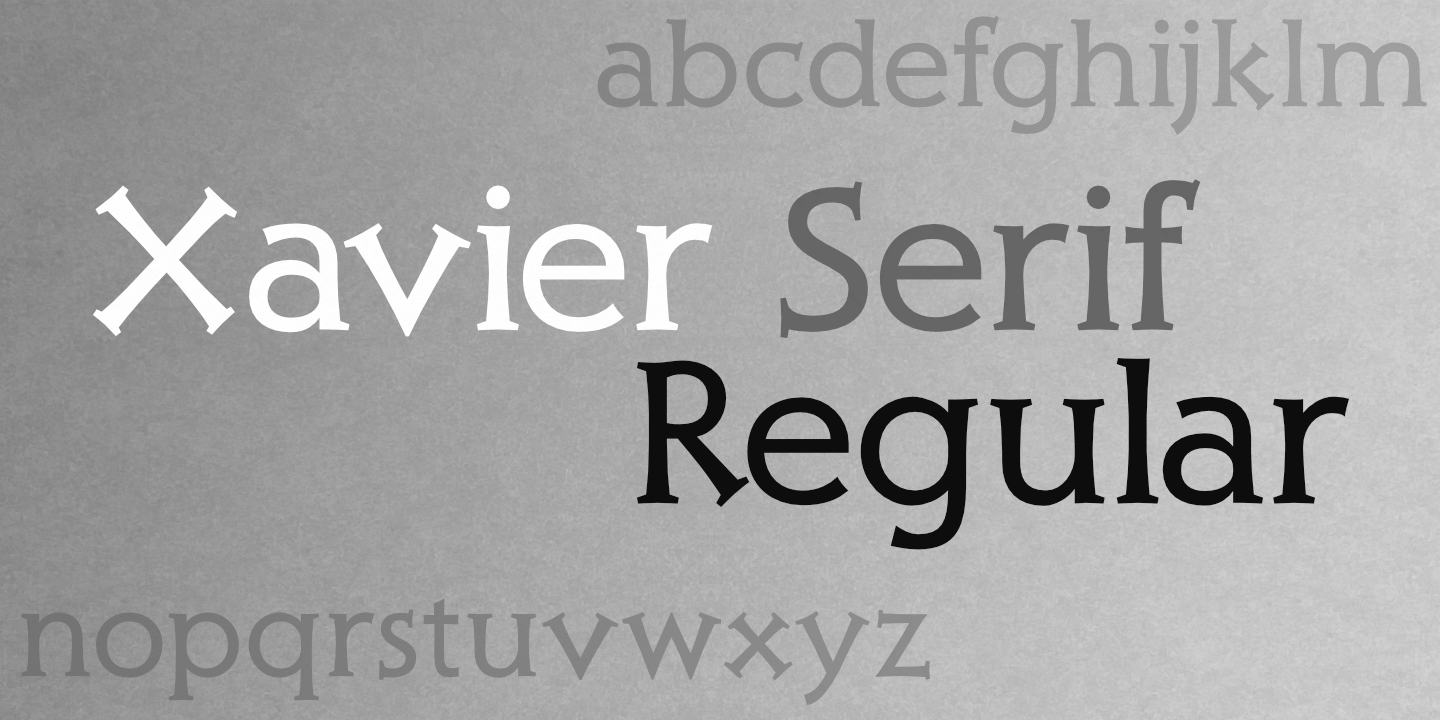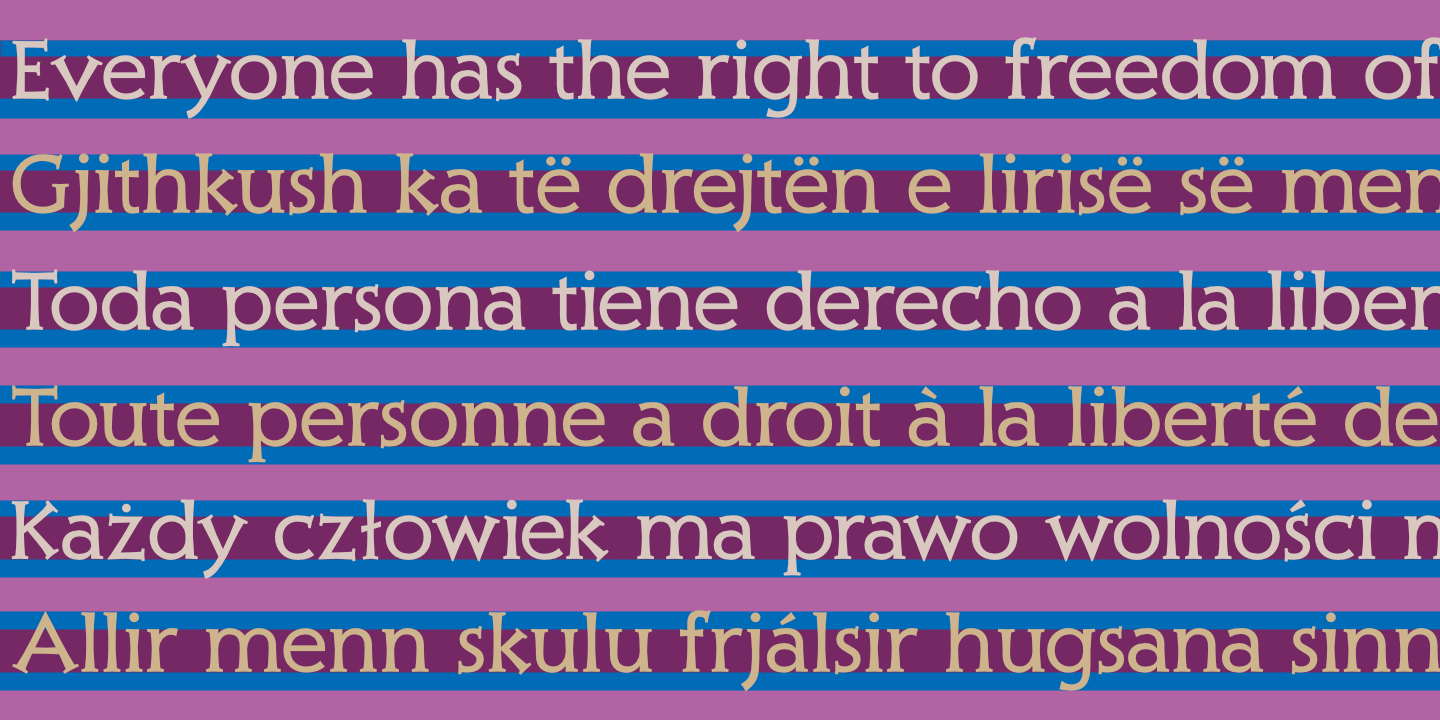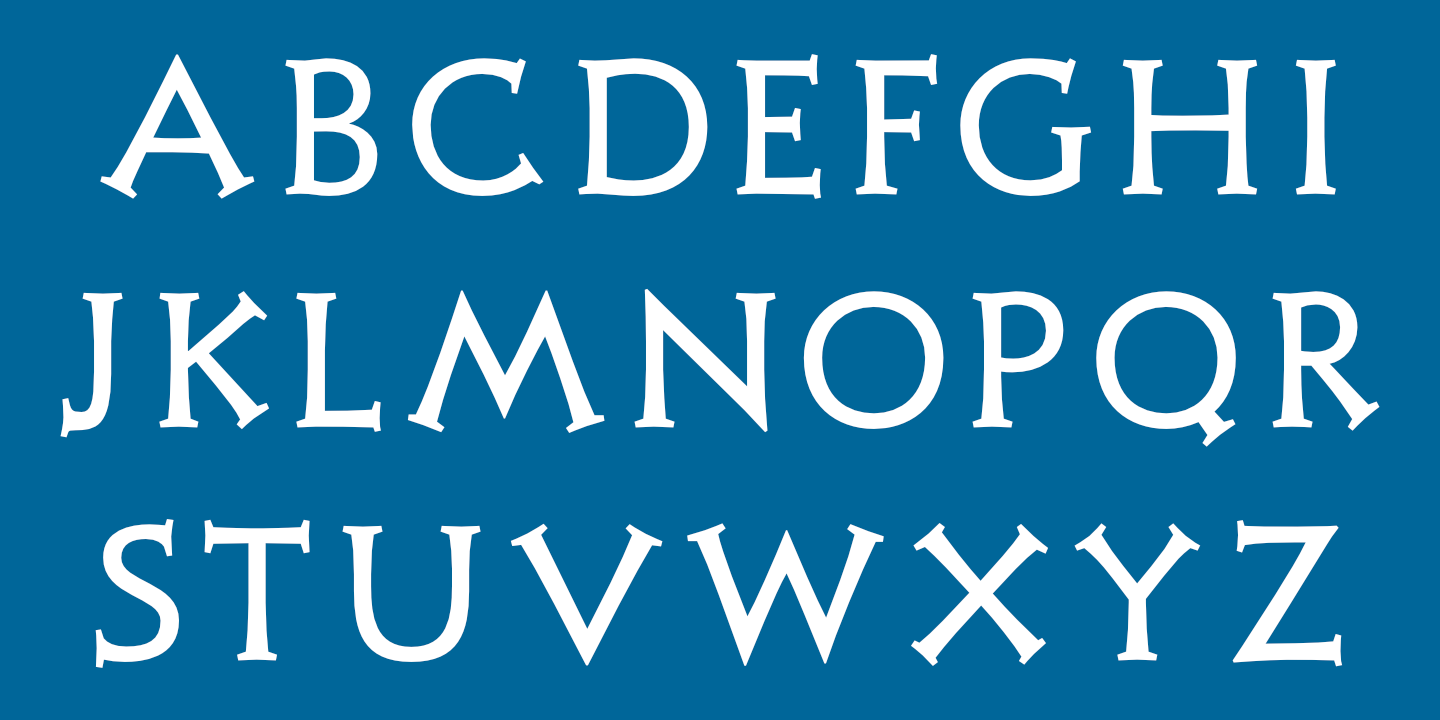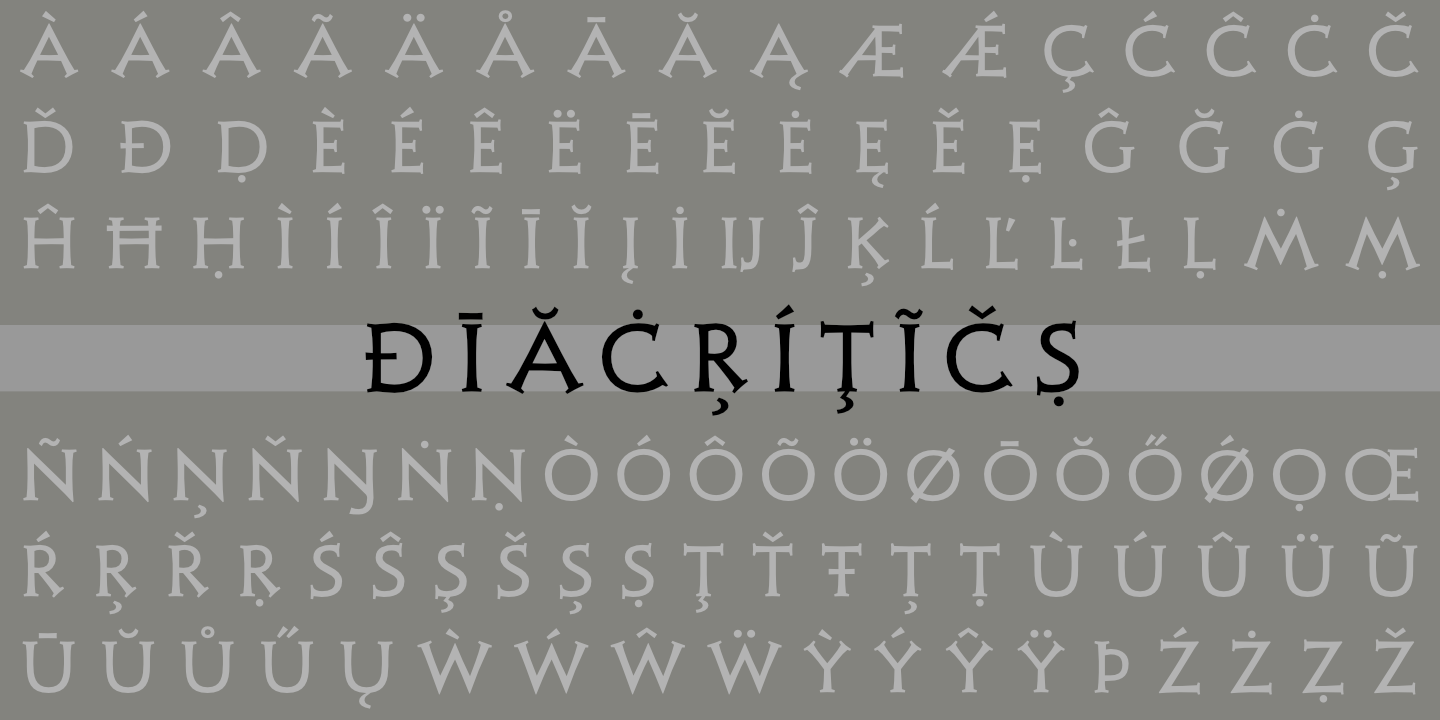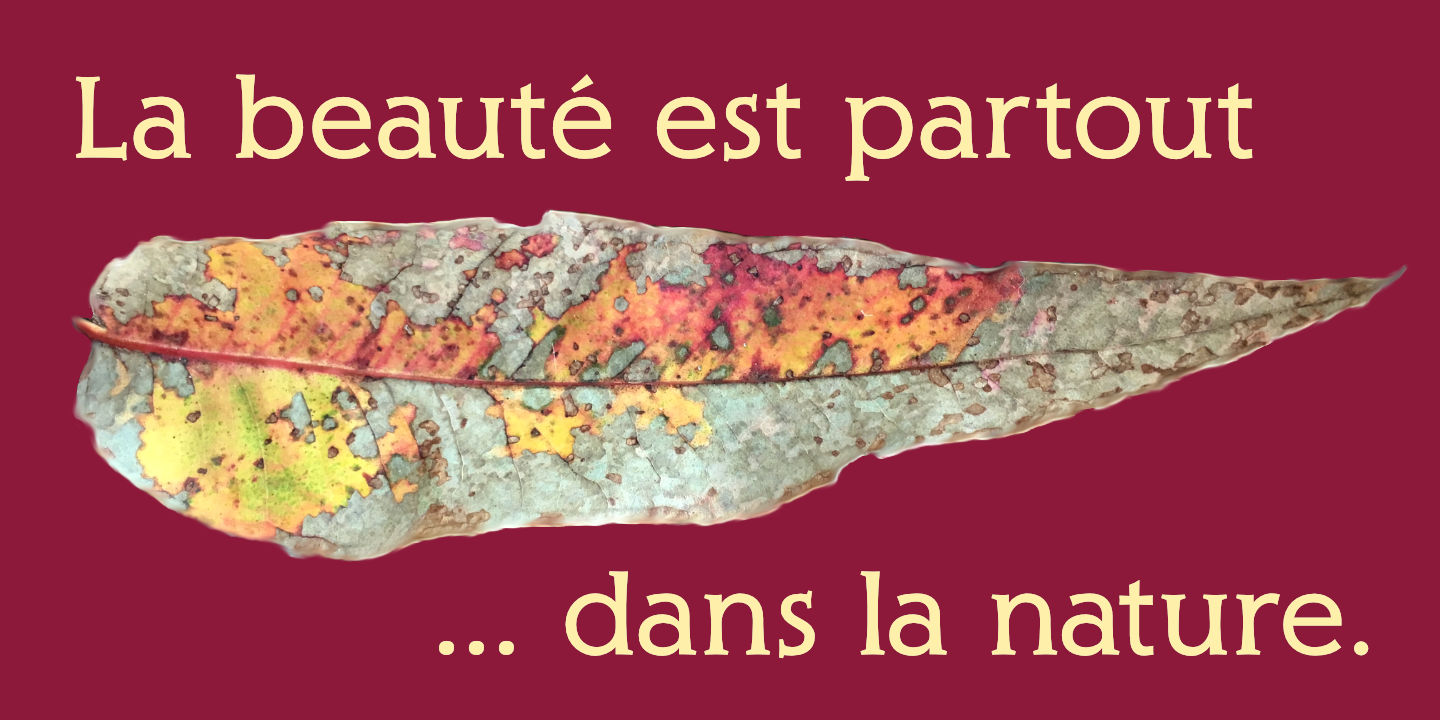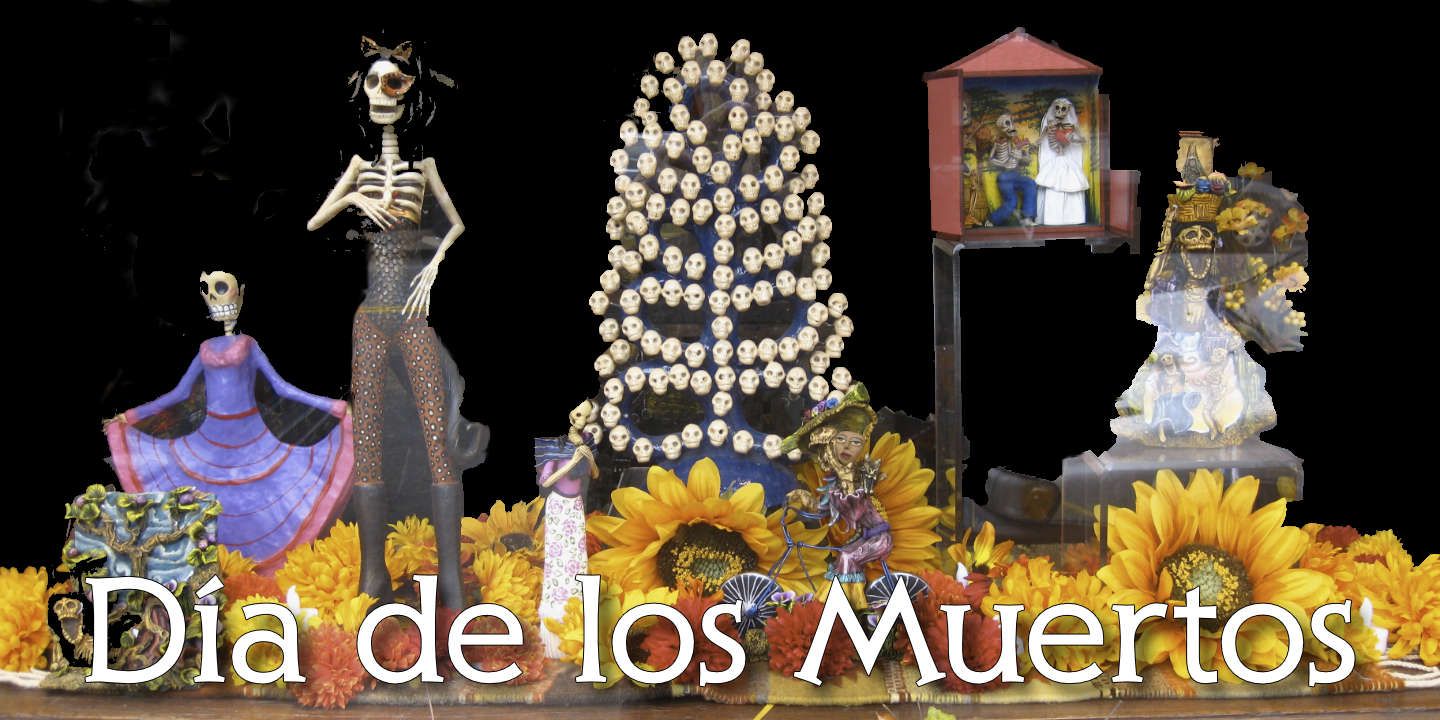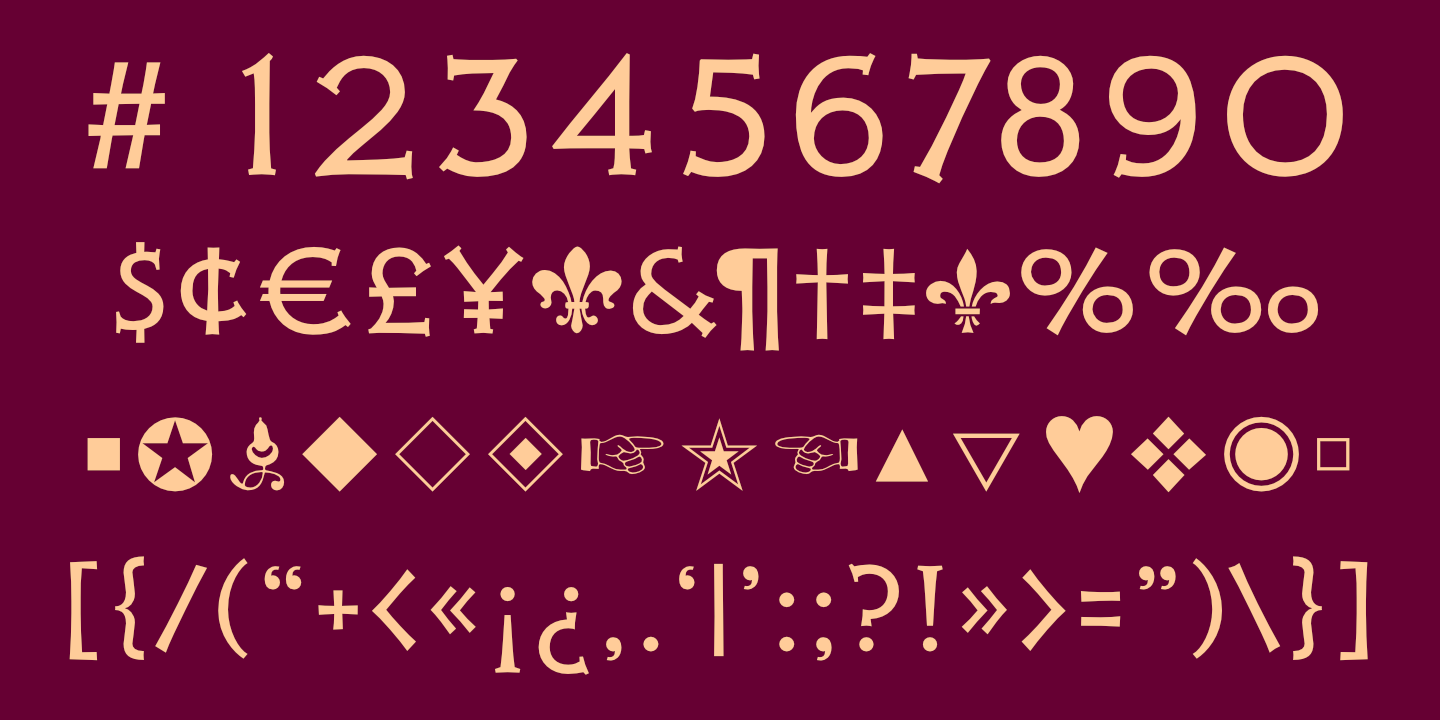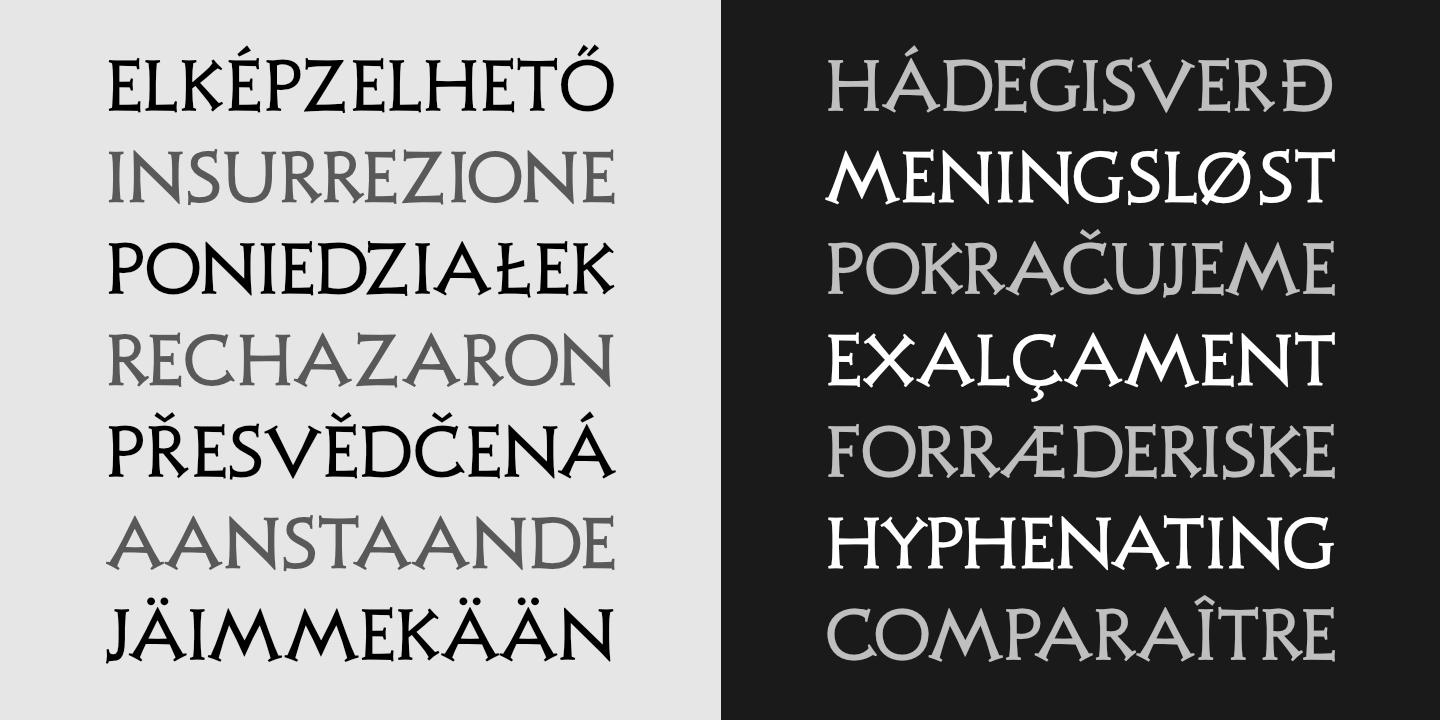
blank Latin Alphabet
Xavier Serif Regular: Basic Latin alphabet. See Glyphs for details. blank
Numerals, Punctuation, etc.
Xavier Serif Regular: Numerals, basic punctuation, currency symbols, and a sampling of ornaments.
UDHR
Xavier Serif Regular supports many European languages. See Glyphs for details.
Stacked Text
Notice that light text on a dark background appears slightly heavier than dark text on a light background. blank
Diacritics
Día de los Muertos
La Beauté partout
Succulents
Fontname poster